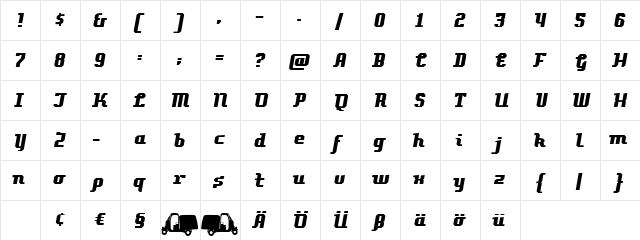
Pellegrini Italic Font Preview
Pellegrini Italic
Design Context for Pellegrini Typeface
Pellegrini offers clean, dependable letterforms without strong stylistic allegiance, making it a practical choice for designers who need flexibility. The slanted form adds forward momentum and visual energy.